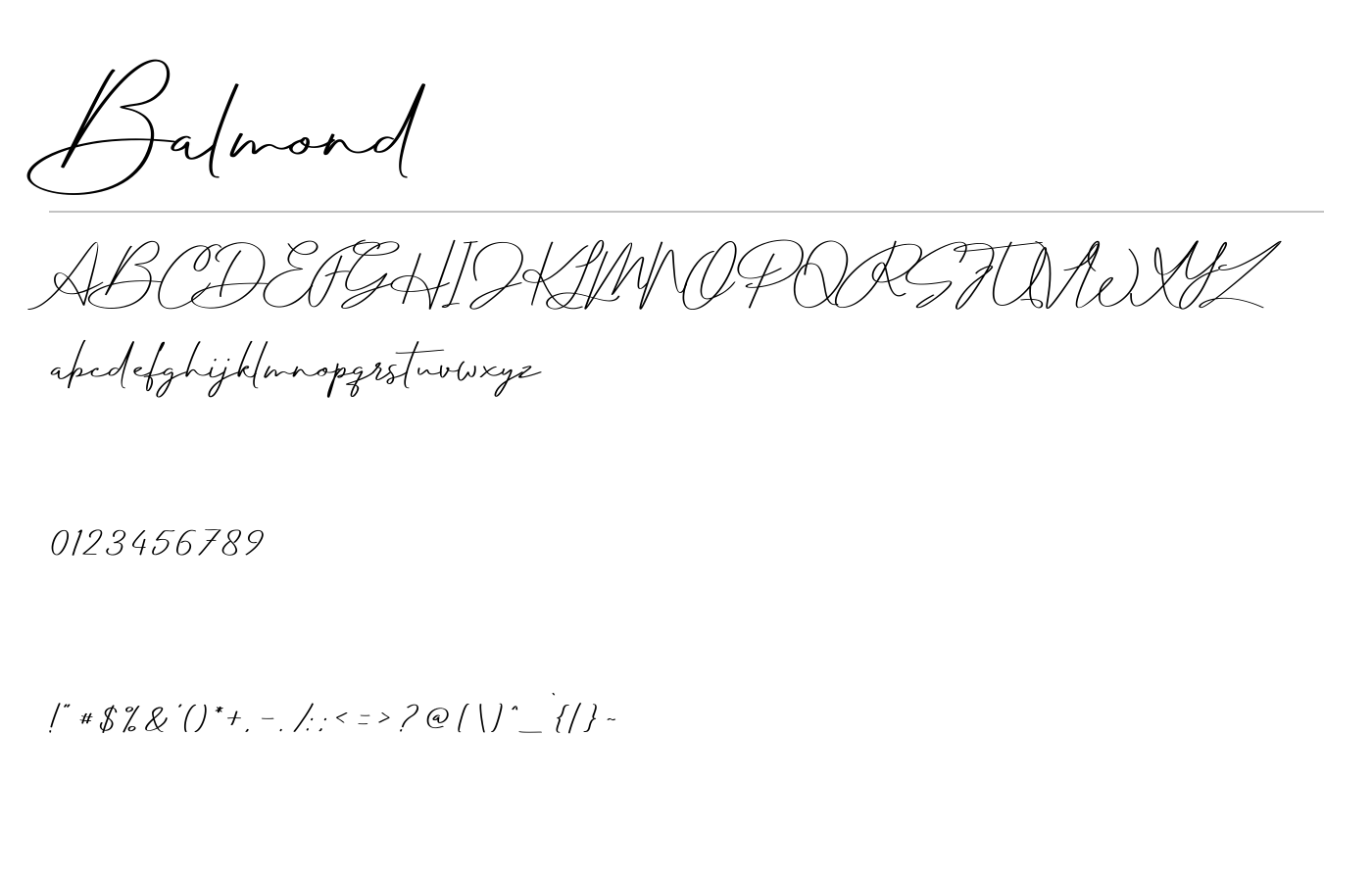
Balmond is a delicate and elegant script font characterized by its thin, flowing strokes and refined, handwritten style. It conveys a sophisticated and personal touch, making it perfect for invitations, branding, and other creative projects that seek a graceful and intimate feel. Its light weight and airy letterforms lend it a modern yet timeless personality that works well in both stylish headlines and decorative text.
Balmond Font